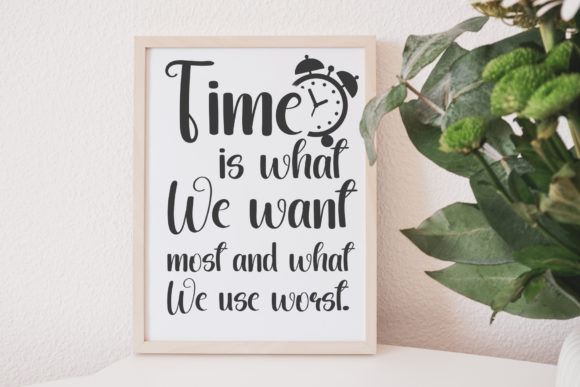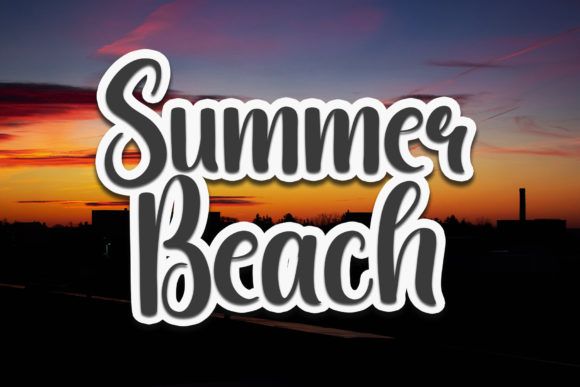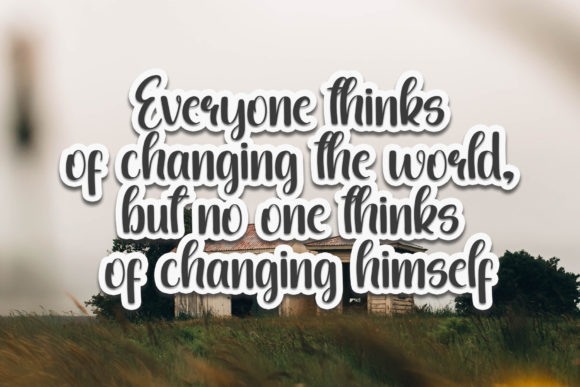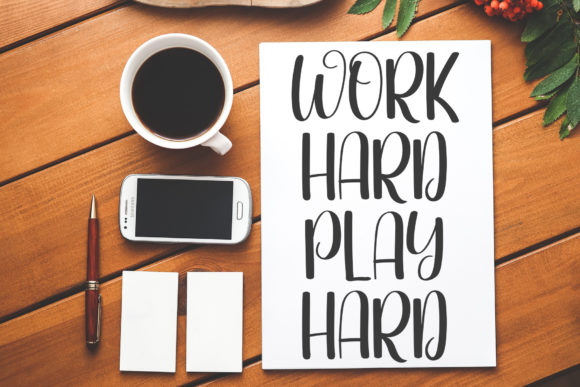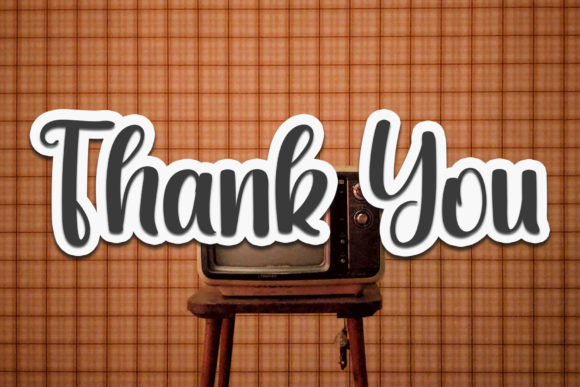
Introducing Gloria Farmhouse Font: A Timeless Handwritten Delight
Are you a designer or crafter looking for a font that can add a touch of elegance and personality to your creations? Look no further than Gloria Farmhouse Font, a lovely and timeless handwritten font that is sure to make your designs come alive!
A Unique and Beautiful Touch
Gloria Farmhouse Font boasts a unique and beautiful touch that sets it apart from other fonts. Every letter has been carefully crafted to have its own distinct character, giving your designs a personal and handmade feel. Whether you’re creating eye-catching logos, branding materials, or quotes, Gloria Farmhouse Font is the perfect choice.
As a designer or crafter, you know how important it is to have a font that can help you stand out from the crowd. Gloria Farmhouse Font is designed to help you do just that. Its timeless and elegant style makes it perfect for a wide range of design projects, from rustic and vintage-inspired designs to modern and sophisticated ones.
Key Features of Gloria Farmhouse Font
- Handwritten with love: Gloria Farmhouse Font is a handwritten font that has been crafted with love and care. Each letter has been carefully written to give your designs a personal touch.
- Unique and beautiful: Every letter in Gloria Farmhouse Font has a unique and beautiful touch that will make your designs stand out.
- Timeless and elegant: The font has a timeless and elegant style that makes it perfect for a wide range of design projects.
- Easily readable: Despite its handwritten nature, Gloria Farmhouse Font is easily readable, making it perfect for use in quotes, branding materials, and more.
- Versatile: Gloria Farmhouse Font can be used for a wide range of design projects, from logos and branding materials to quotes and more.
How to Use Gloria Farmhouse Font
Gloria Farmhouse Font is perfect for designers and crafters who are looking for a font that can add a touch of elegance and personality to their creations. Here are a few ideas for using Gloria Farmhouse Font:
- Logos and branding materials: Use Gloria Farmhouse Font to create eye-catching logos and branding materials that will help your business stand out.
- Quotes and posters: Create inspiring quotes and posters using Gloria Farmhouse Font. The font’s elegant style makes it perfect for use in motivational and inspirational designs.
- Stationery and cards: Use Gloria Farmhouse Font to create beautiful stationery and cards that will add a personal touch to your correspondence.
- Web design: Gloria Farmhouse Font can be used in web design to add a touch of elegance and personality to your website.